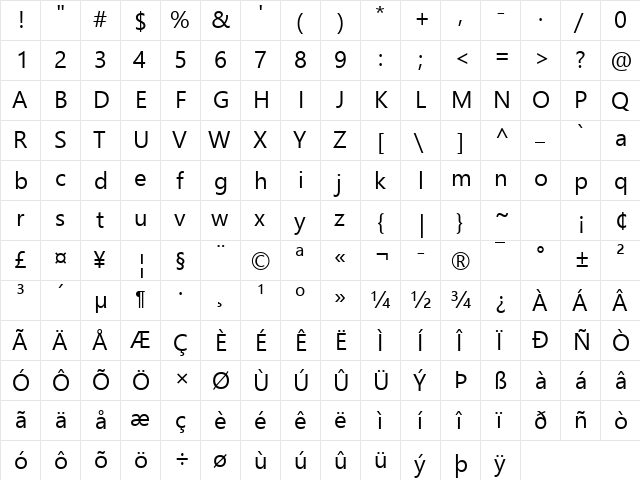
Segoe UI Historic Regular Font Preview
Segoe UI Historic Regular
Segoe UI Historic Regular Font Details
Design Context for Segoe UI Historic Typeface
Segoe UI Historic offers clean, dependable letterforms without strong stylistic allegiance, making it a practical choice for designers who need flexibility.